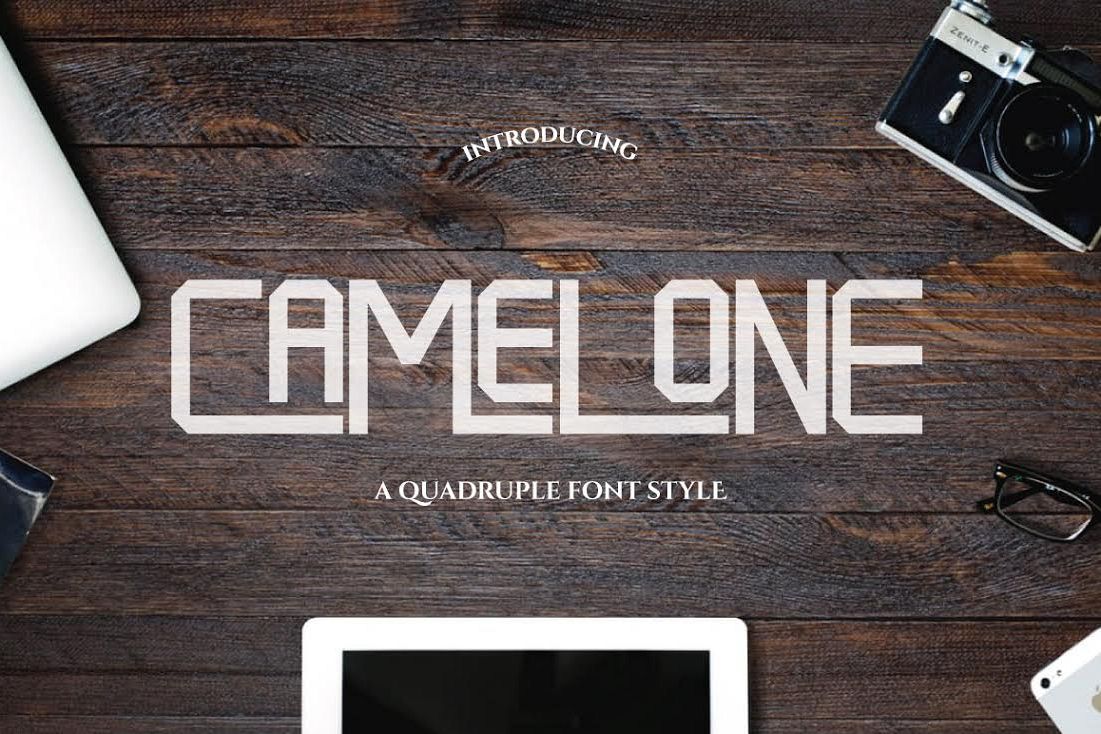
Can be used for various purposes namely headings, logos, wedding invitations, t-shirts, letterheads, signages, labels, news, posters, badges etc.
Numeral & Punctuations